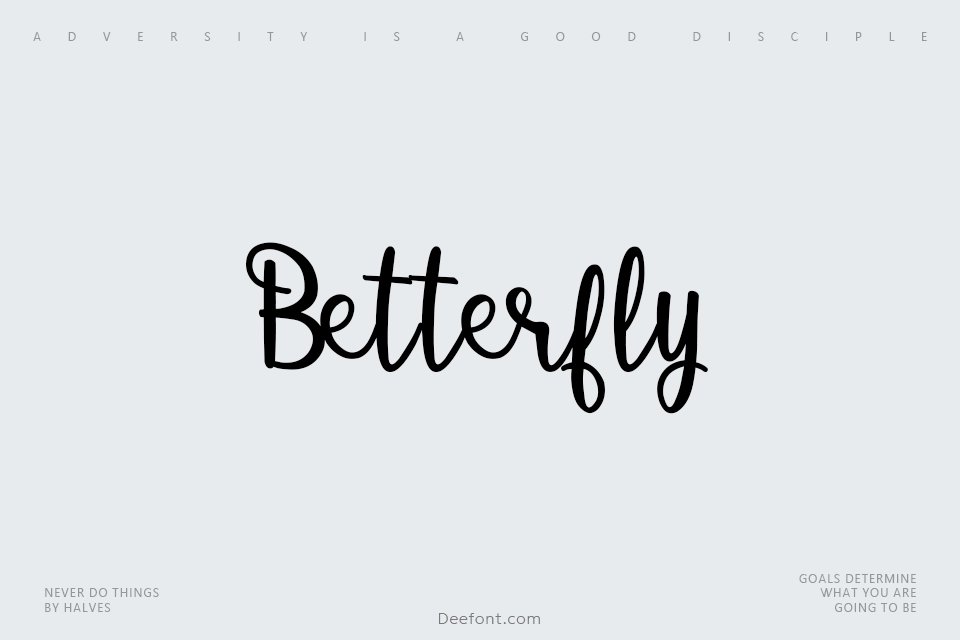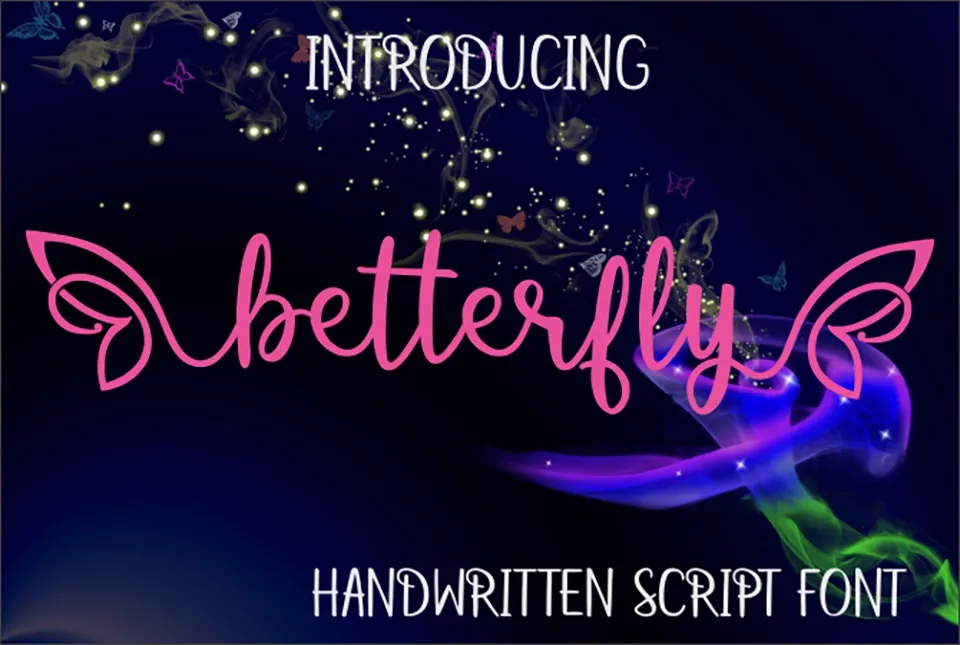
Betterfly Font
Betterfly is a stunning handwritten font, perfect for giving your projects that “wow!” factor; this script has a beautiful and romantic feel to it, and includes butterfly wings in some of the characters so you can create truly unique looking designs.
Designed by:Jaime Rangel CastroWebsite